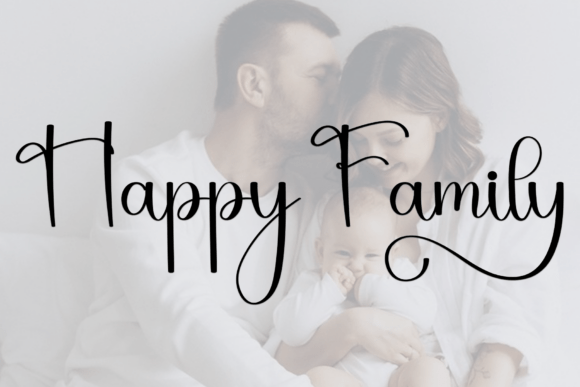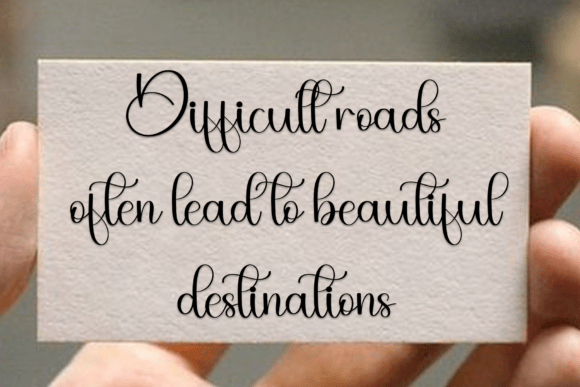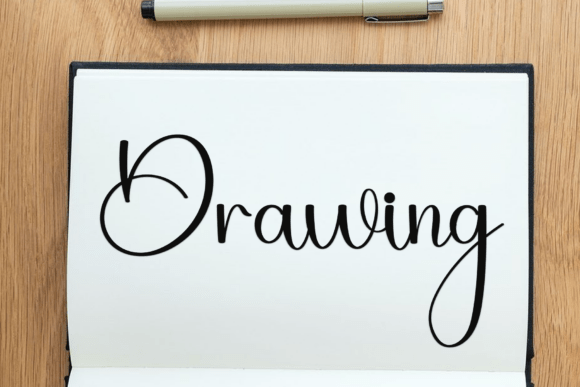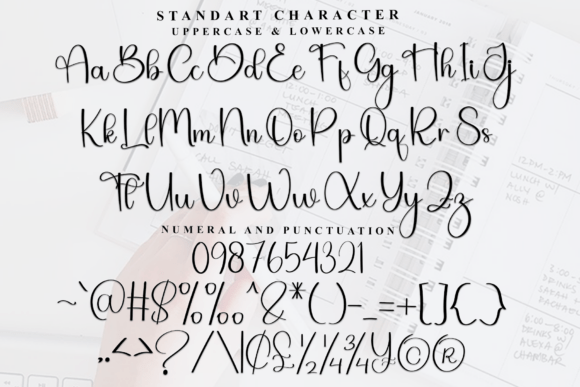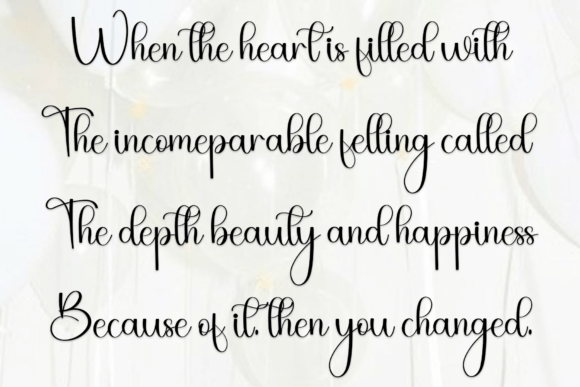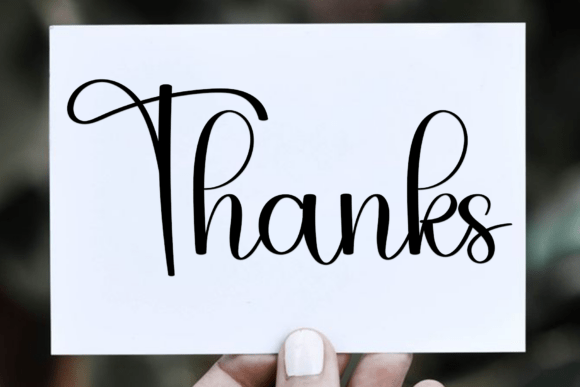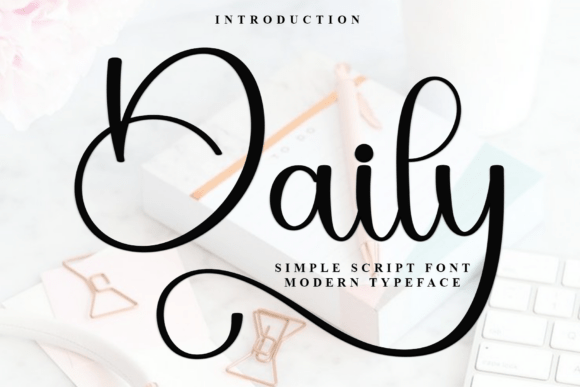
Introducing Daily Font: Elevate Your Designs with Elegant Calligraphy
In the world of typography, few fonts capture the essence of elegance and sophistication as beautifully as Daily Font. This stunning script font is a masterful blend of traditional calligraphy and modern design, making it the perfect choice for a wide range of creative projects. From wedding invitations and logos to branding, social media graphics, and more, Daily Font brings a touch of refinement and charm to every letter.
The Beauty of Hand-Lettered Calligraphy
Daily Font is inspired by the art of hand-lettered calligraphy, a timeless and classic form of writing that exudes elegance and sophistication. The font’s smooth curves and flowing strokes are reminiscent of handwritten calligraphy, yet with a modern twist that makes it versatile and adaptable. Whether you’re a designer, crafty DIY enthusiast, or simply someone who appreciates beautiful typography, Daily Font is sure to captivate and inspire.
Perfect for Wedding Invitations and Special Occasions
One of the most popular uses for Daily Font is in wedding invitations and other special occasion materials. The font’s romantic, flowing script is perfectly suited to capturing the magic and emotion of a wedding day or other milestone event. With Daily Font, you can create beautiful, one-of-a-kind invitations that set the tone for an unforgettable celebration. Plus, the font’s elegant style ensures that your invitations will be remembered for years to come.
Elevate Your Brand with Daily Font
Daily Font is not just limited to personal projects – it’s also an excellent choice for businesses and brands looking to elevate their visual identity. The font’s sophisticated, high-end feel makes it perfect for logos, branding materials, and marketing collateral. Whether you’re a luxury brand, a boutique business, or simply a company looking to refresh your image, Daily Font can help you convey your message with style and sophistication.
One of the standout features of Daily Font is its incredible versatility. This font can be used in a wide range of contexts, from formal and professional to playful and creative. Whether you’re designing a wedding invitation, a social media graphic, or a logo, Daily Font adapts seamlessly to your needs. The font’s smooth curves and flowing strokes work beautifully in large and small sizes, making it perfect for headlines, body copy, and more.
Romantic, Classy, or Chic: Daily Font Delivers
So, what sets Daily Font apart from other script fonts on the market? The answer lies in its unique blend of elegance, charm, and personality. Whether you’re going for a romantic, whimsical feel or a more classy, sophisticated look, Daily Font delivers. The font’s beautiful, flowing script is infused with a sense of warmth and character that makes it perfect for designs that need a touch of personality.
Why Choose Daily Font?
With so many fonts to choose from, why should you choose Daily Font for your next project? Here are just a few compelling reasons:
- Elegant and sophisticated: Daily Font brings a touch of refinement and elegance to every design.
- Versatile: The font can be used in a wide range of contexts, from formal to playful.
- Beautifully crafted: Daily Font’s smooth curves and flowing strokes make it a joy to use.
- Perfect for special occasions: The font is ideal for wedding invitations, anniversaries, and other milestone events.
Get Creative with Daily Font
Are you ready to elevate your designs with the elegance and sophistication of Daily Font? Whether you’re a designer, crafty DIY enthusiast, or simply someone who appreciates beautiful typography, this stunning script font is sure to inspire. With its unique blend of traditional calligraphy and modern design, Daily Font is the perfect choice for anyone looking to add a touch of charm and personality to their creative projects.